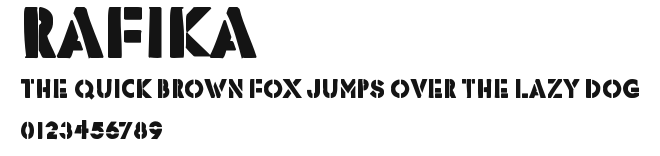
Rafika Preview
• Font Name: Rafika
• Designer: Ray Larabie
About Rafika.ttf
Rafika.ttf is a modern, elegant sans-serif font designed for ultimate readability and visual harmony. Perfect for branding, headlines, web design, and print materials.